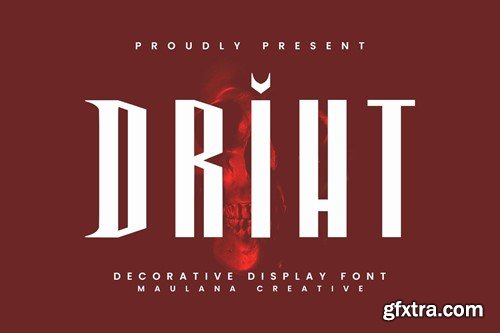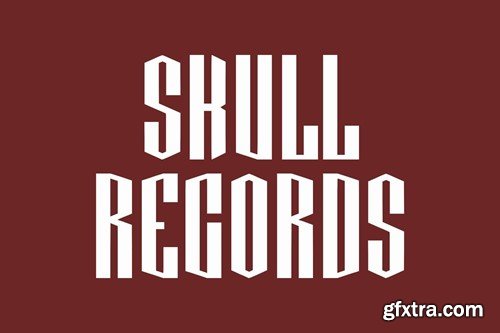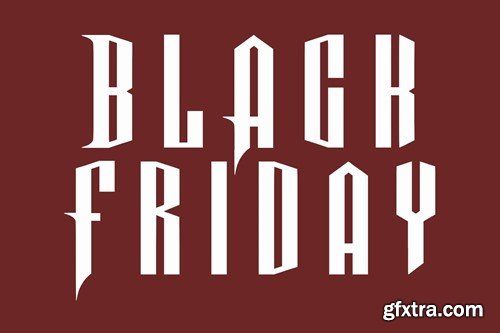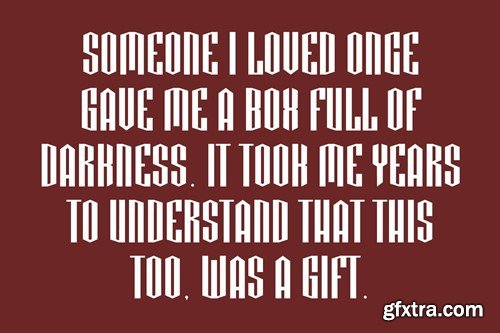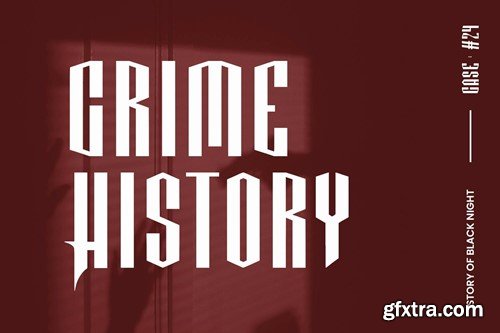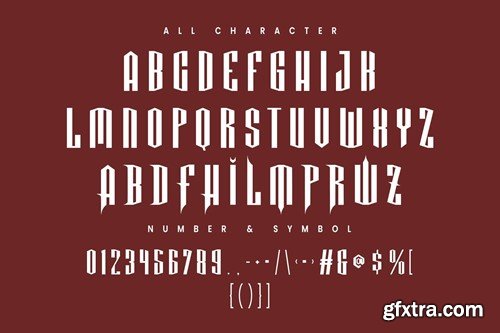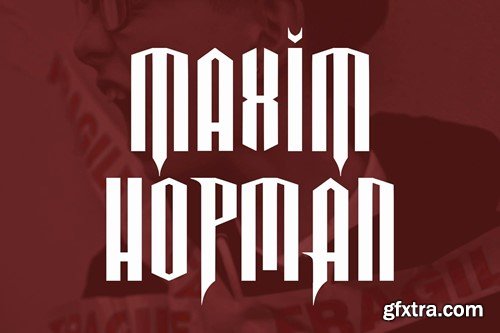
Driht Decorative Display Font NW8PEE2
Driht Decorative Display Font
Driht decorative display font. Heavy stroke, fun character with a bit of ligatures. To give you an extra creative work. Driht decorative display font support multilingual more than 100+ language. This font is good for logo design, Social media, Movie Titles, Books Titles, a short text even a long text letter and good for your secondary text font with script or serif. Make a stunning work with Driht decorative display font. What you get: Cheers, Maulana Creative